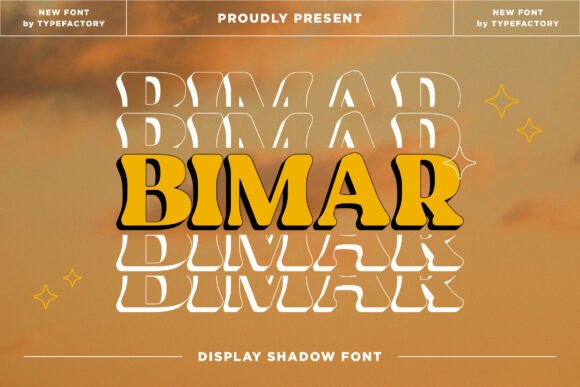
The Bimar Font: A Bold Display Typeface for Striking Headlines
I’ll never forget the struggle I faced while working on a project that required a bold, eye-catching font. My client wanted a headline that would grab attention, but I was stuck with a bland, generic typeface that just wouldn’t cut it. That’s when I discovered the Bimar font, a game-changing bold display typeface that has since become a staple in my design toolkit.
What Makes Bimar Special?
Bimar is a bold display typeface that features strong serif letterforms combined with built-in shadow styling. The characters are designed with thick strokes, rounded edges, and dimensional depth that create a striking headline presence. This typeface includes uppercase, lowercase, numerals, punctuation, and multilingual support, making it an excellent choice for a wide range of design projects.
What I Love About Bimar ✨
• ✅ Unique Shadow Styling: The integrated shadow structure makes it easy to create layered compositions and standout headlines.
• ✅ Multilingual Support: Bimar includes support for multiple languages, making it a great choice for global brands or projects.
• ✅ Bold and Eye-Catching: The thick strokes and rounded edges create a bold, attention-grabbing presence that’s perfect for headlines and titles.
• ⚠️ Limited Use Cases: Bimar is a display typeface, so it’s best used for headlines and titles rather than body text.
• ⚠️ May Not Be Suitable for Small Sizes: The bold styling and shadow effects can make the text difficult to read at small sizes.
The Story Behind Bimar
Bimar was designed with the goal of creating a bold, eye-catching typeface that would stand out in a crowded design landscape. The designer, inspired by classic serif fonts and modern digital trends, aimed to create a font that would be both nostalgic and forward-thinking. The result is a unique and versatile typeface that’s perfect for a wide range of design projects.
What is Bimar font best used for? Bimar is best used for headlines, titles, and other display text where a bold and eye-catching presence is desired.
Does Bimar support multilingual text? Yes, Bimar includes support for multiple languages, making it a great choice for global brands or projects.